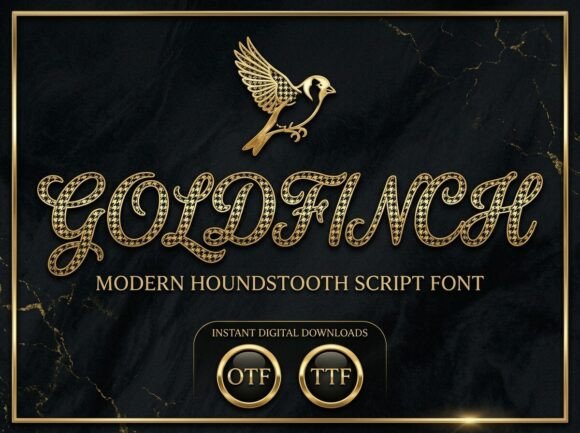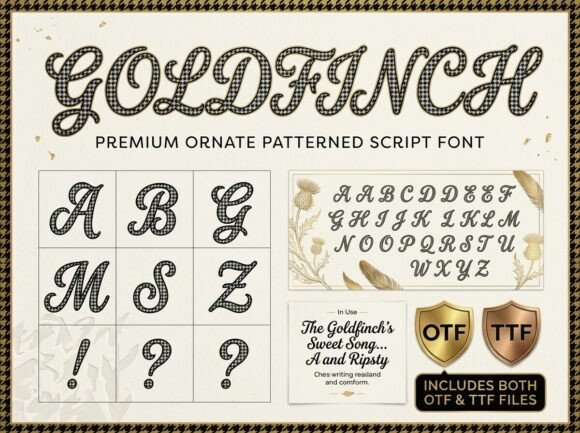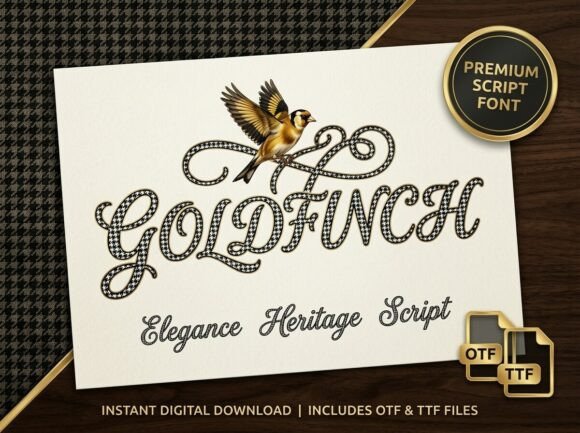
Exuding Classic Sophistication with Goldfinch Font
In the realm of typography, few fonts manage to convey the essence of classic sophistication and traditional craftsmanship as effortlessly as Goldfinch. This premium script font is a masterclass in elegance, designed specifically for projects that demand a touch of prestige and luxury. From wedding stationery to luxury brand packaging, boutique signage, and editorial headlines, Goldfinch is the perfect choice for designers and crafters looking to imbue their work with a sense of heritage and bespoke quality.
The Art of Traditional Craftsmanship
Goldfinch is more than just a font; it’s a celebration of the art of traditional craftsmanship. Its intricate details and flowing lines are reminiscent of a bygone era, when attention to detail and quality were paramount. This font is a nod to the past, while still being firmly rooted in the present. Its versatility and timelessness make it an excellent choice for a wide range of applications, from high-end branding to beautiful wedding invitations.
Unparalleled Versatility
One of the standout features of Goldfinch is its incredible versatility. Whether used as a standalone display piece or paired with clean serifs, this font brings a sense of sophistication and elegance to every layout. Its ability to seamlessly integrate with a variety of design styles makes it an excellent addition to any designer’s toolkit. Whether you’re working on a luxury brand’s packaging or a boutique’s signage, Goldfinch is sure to make a lasting impression.
Perfect for Wedding Stationery and Luxury Branding
Wedding stationery and luxury branding are two areas where Goldfinch truly shines. Its elegant lines and sophisticated feel make it the perfect choice for wedding invitations, save-the-dates, and other stationery. For luxury brands, Goldfinch provides a level of prestige and sophistication that’s hard to match. Whether you’re working with a high-end fashion brand or a luxury food company, this font is sure to convey the level of quality and craftsmanship that these brands demand.
Editorial Headlines and Boutique Signage
Goldfinch is also an excellent choice for editorial headlines and boutique signage. Its classic sophistication and timeless feel make it perfect for magazine headlines, book titles, and other editorial applications. For boutiques and small businesses, Goldfinch provides a level of elegance and sophistication that’s sure to attract customers and set the brand apart from the competition.
Tips for Using Goldfinch
To get the most out of Goldfinch, here are a few tips to keep in mind:
- Use Goldfinch as a display font to add a touch of elegance and sophistication to your design.
- Pair Goldfinch with clean serifs for a classic, timeless look.
- Don’t be afraid to mix and match Goldfinch with other fonts to create a unique and eye-catching design.
Goldfinch is a premium script font that embodies the essence of classic sophistication and traditional craftsmanship. Its versatility, elegance, and timeless feel make it the perfect choice for a wide range of applications, from wedding stationery to luxury branding and editorial headlines. Whether you’re a designer or crafter, Goldfinch is sure to become a staple in your toolkit. So why settle for ordinary when you can exude classic sophistication with Goldfinch?
Key Features of Goldfinch Font
- Premium script font with classic sophistication
- Perfect for wedding stationery, luxury branding, and editorial headlines
- Unparalleled versatility and timeless feel
- Elegant lines and sophisticated feel
- Pairs well with clean serifs and other fonts
In conclusion, Goldfinch is a font that will elevate your designs and give them a level of sophistication and elegance that’s hard to match. So why wait? Try Goldfinch today and experience the art of traditional craftsmanship in your designs.